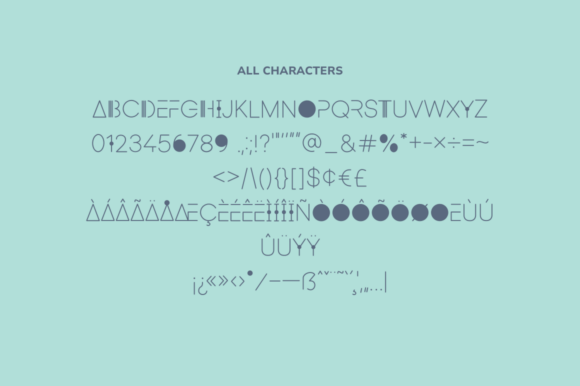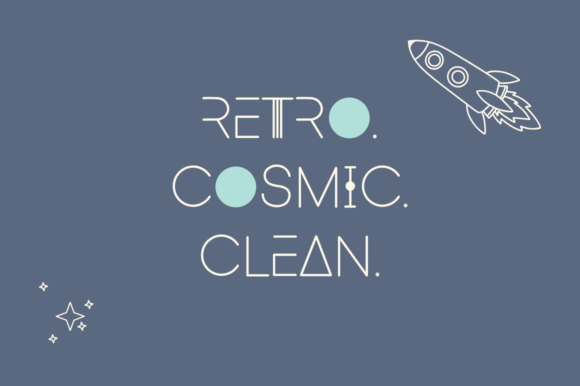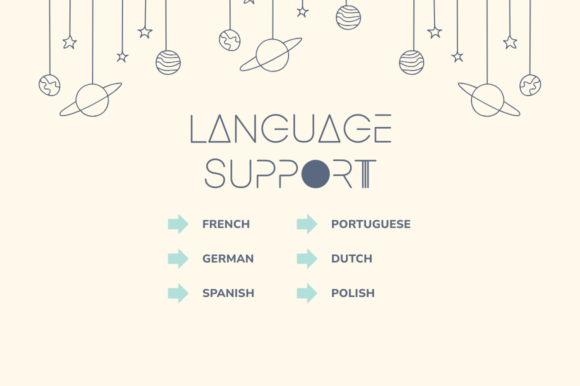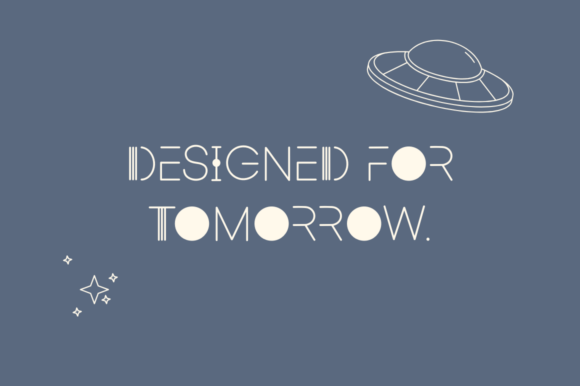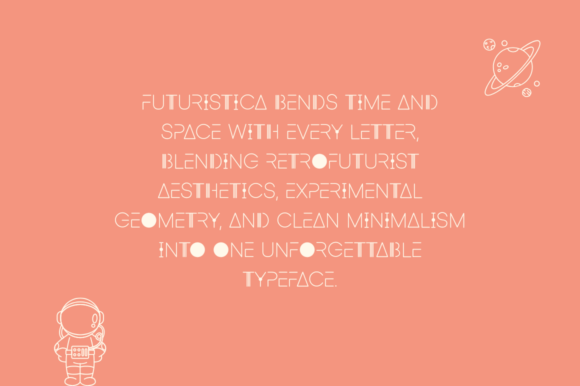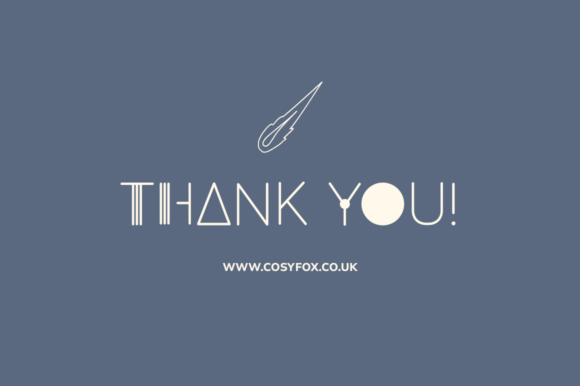
Futuristica Font: Elevate Your Designs with a Touch of Futuristic Elegance
In the realm of typography, few fonts capture the essence of modernity and futurism as effectively as Futuristica. This cool and modern display font has been making waves in the design community, and for good reason. With its clean lines, geometric shapes, and sleek letterforms, Futuristica exudes a sense of contemporary style and sophistication that is hard to match.
The Design Philosophy Behind Futuristica
Futuristica’s design is rooted in the principles of futuristic design, which emphasizes simplicity, minimalism, and a focus on functionality. The font’s creator aimed to craft a typeface that would not only look modern and sleek but also be highly legible and versatile. The result is a font that is both visually striking and highly functional, making it an excellent choice for a wide range of design applications.
Key Features of Futuristica Font
- Clean Lines and Geometric Shapes: Futuristica’s design is characterized by its use of clean lines and geometric shapes, which give it a distinctly modern and futuristic feel.
- Sleek Letterforms: The font’s letterforms are sleek and streamlined, making it perfect for use in headlines, titles, and other display text.
- High Legibility: Despite its futuristic design, Futuristica remains highly legible, even at smaller sizes.
- Versatility: Futuristica is a highly versatile font that can be used in a wide range of design applications, from branding and advertising to digital projects and more.
Use Cases for Futuristica Font
Futuristica’s unique combination of style and functionality makes it an excellent choice for a variety of design projects. Here are some use cases where Futuristica truly shines:
- Branding: Use Futuristica to create a modern and sophisticated brand identity that sets your company apart from the competition.
- Headlines and Titles: Futuristica’s sleek letterforms make it perfect for use in headlines, titles, and other display text.
- Digital Projects: Futuristica is a great choice for digital projects, such as website designs, mobile apps, and more.
- Advertising: Use Futuristica to create eye-catching ads that grab attention and leave a lasting impression.
Tips for Using Futuristica Font Effectively
To get the most out of Futuristica, here are a few tips to keep in mind:
- Use it sparingly: Futuristica is a bold and attention-grabbing font, so use it sparingly to avoid overwhelming your design.
- Pair it with contrasting fonts: Pair Futuristica with contrasting fonts to create visual interest and add depth to your design.
- Experiment with colors: Futuristica looks great in a variety of colors, so don’t be afraid to experiment and find the perfect hue for your design.
Futuristica is a truly exceptional font that embodies the spirit of modern design. With its clean lines, geometric shapes, and sleek letterforms, it is the perfect choice for designers and crafters looking to add a touch of futuristic elegance to their work. Whether you’re working on a branding project, creating headlines and titles, or designing digital projects, Futuristica is sure to impress. So why wait? Embrace the future with Futuristica and take your designs to the next level!
- Futuristica is a cool and modern display font that captures the essence of futuristic design.
- The font features clean lines, geometric shapes, and sleek letterforms.
- Futuristica is highly versatile and can be used in a wide range of design applications.
- The font is perfect for branding, headlines, digital projects, and advertising.